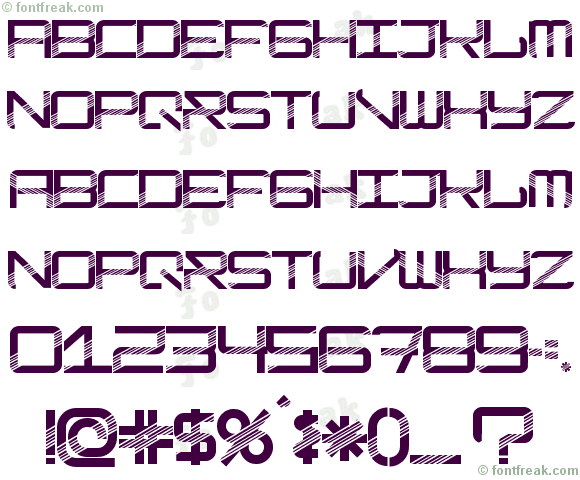
ModernismBold
The ModernismBold font, crafted by XEROGRAPHER FONTS in 2015, is a striking display typeface that embodies the essence of modernist design. As a sans-serif font, it features a clean and geometric aesthetic, making it a versatile choice for a variety of design projects. The bold stroke weight offers substantial presence, while the sharp angles and uniformity of the letterforms create a sense of strength and clarity. The spacing is thoughtfully designed to enhance readability, ensuring that text remains engaging and accessible.
This font excels in diverse applications, making it an excellent choice for modern branding efforts, promotional materials, and digital content. For instance, it can effectively enhance the impact of movie posters, drawing attention to titles and taglines with its bold personality. Additionally, ModernismBold is ideal for restaurant menus, providing an eye-catching yet legible option that complements contemporary dining experiences. It also proves valuable in graphic design projects such as flyers and social media graphics, where a modern touch is essential.
Targeted towards graphic designers, small business owners, and content creators, ModernismBold appeals to those seeking a font that conveys professionalism without sacrificing creativity. Its ability to evoke a sense of modernity makes it an attractive option for branding initiatives that aim to leave a lasting impression.
What sets the ModernismBold font apart is its balance of simplicity and boldness, making it a standout choice for anyone looking to make a statement. With its unique character and versatility, it's no wonder that the ModernismBold font free download is a sought-after resource for designers looking to elevate their work. Whether used for print or digital media, this font is sure to elevate any project.